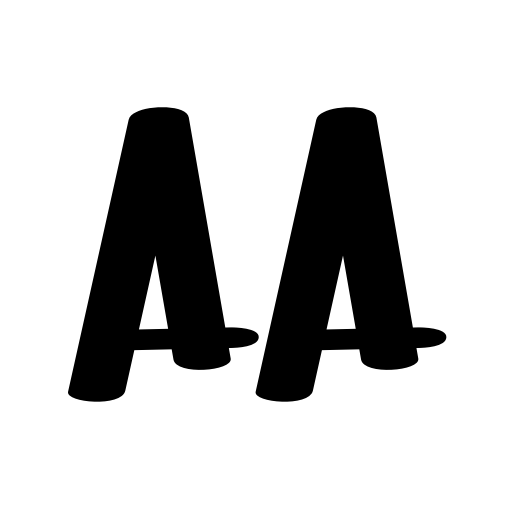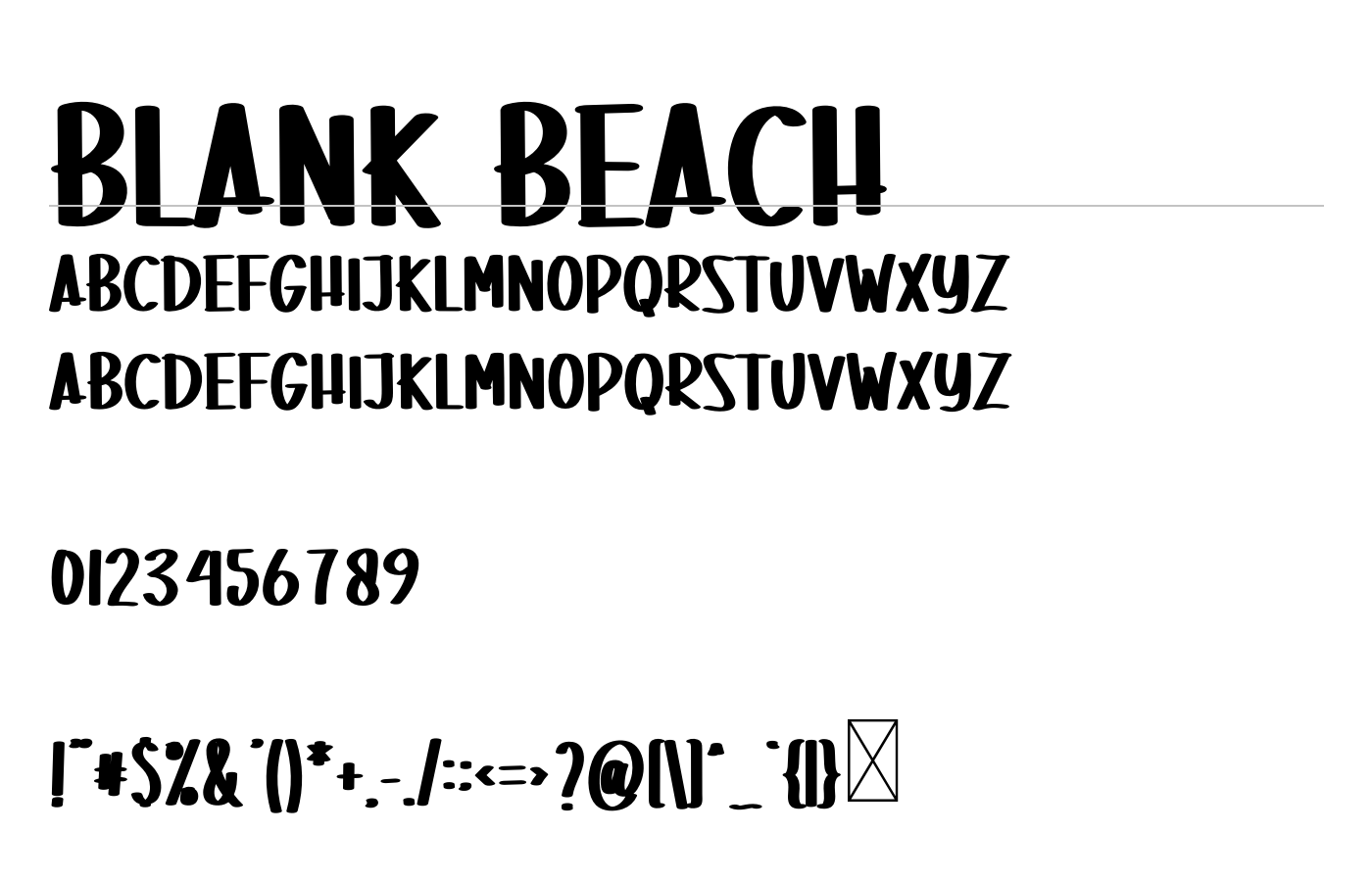
Blank Beach Font is a bold, playful sans serif typeface with a hand-drawn feel that features uneven strokes and quirky letter shapes, giving it a casual and friendly personality. Its slightly condensed width, moderate x-height, and irregular forms make it ideal for eye-catching headlines, fun branding, and creative projects seeking a warm, informal vibe. This font works particularly well in designs for children’s products, casual invitations, or anything that benefits from a lively, approachable style.
Blank Beach Font
About Blank Beach Font